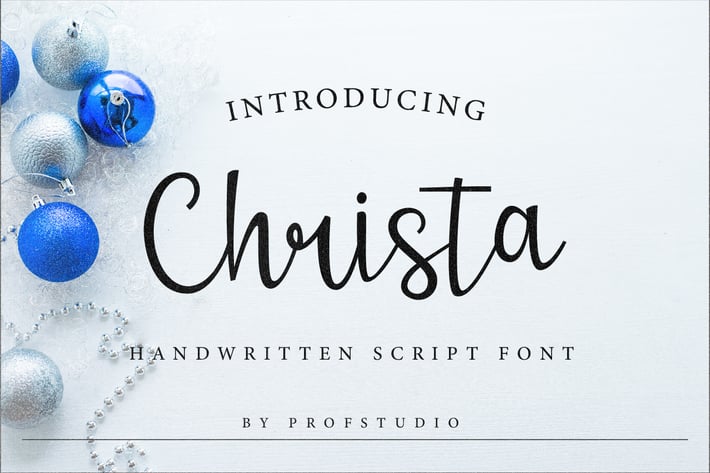
Christa - Handwritten Script Font
**Hi Ladies and Gentleman ! Proudly present best script font “Christa” for you business.
Christa - Casual Handwritten Font which can be interpreted professional. we keep this font looks playful, modern, stylish, readable, stylish, catchy and easy to use.
Christa - is the great choice for photography, branding, event, signature or signature logo design magazine and many other design project. Christa here to make your work to high level!!!